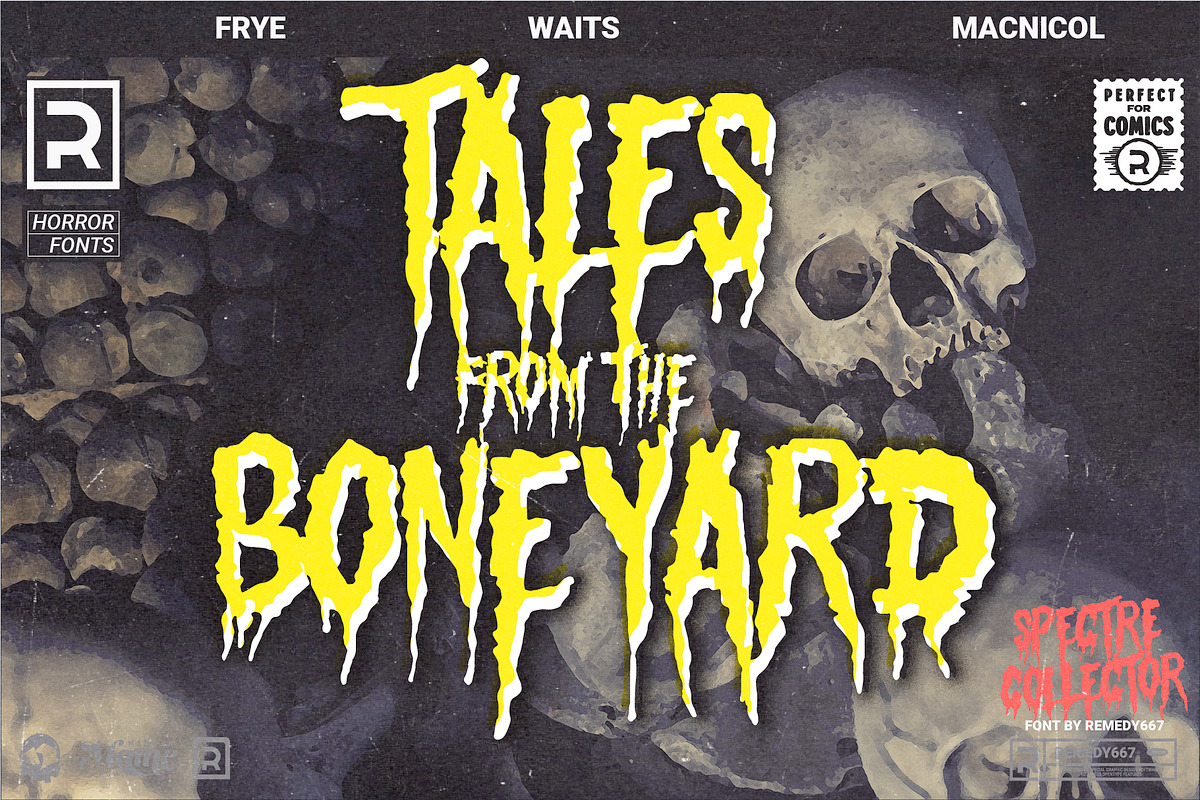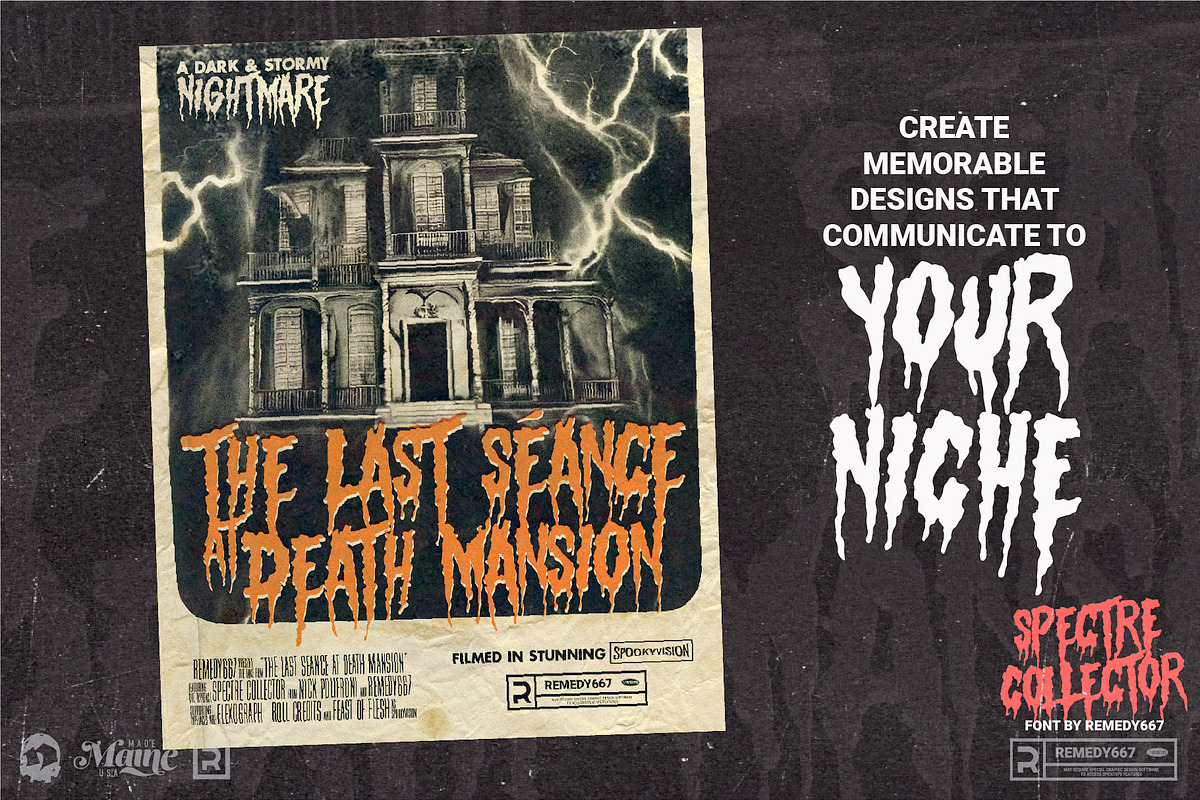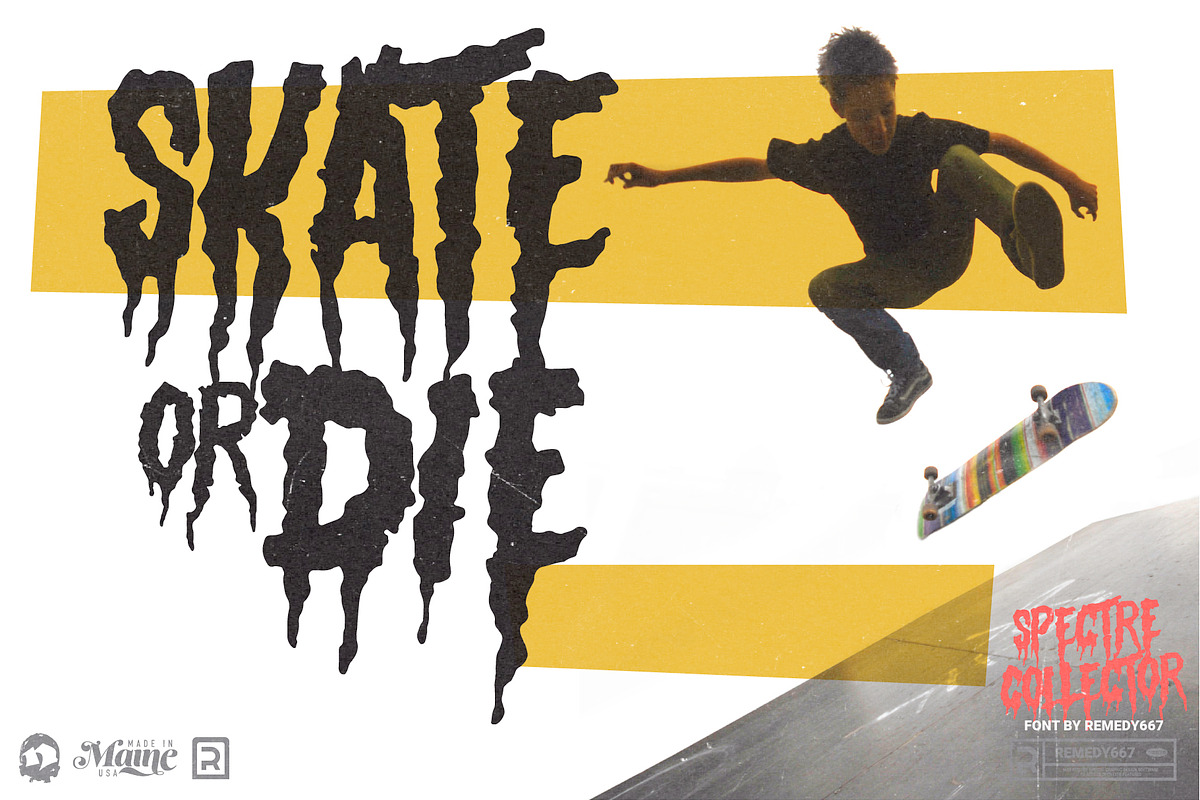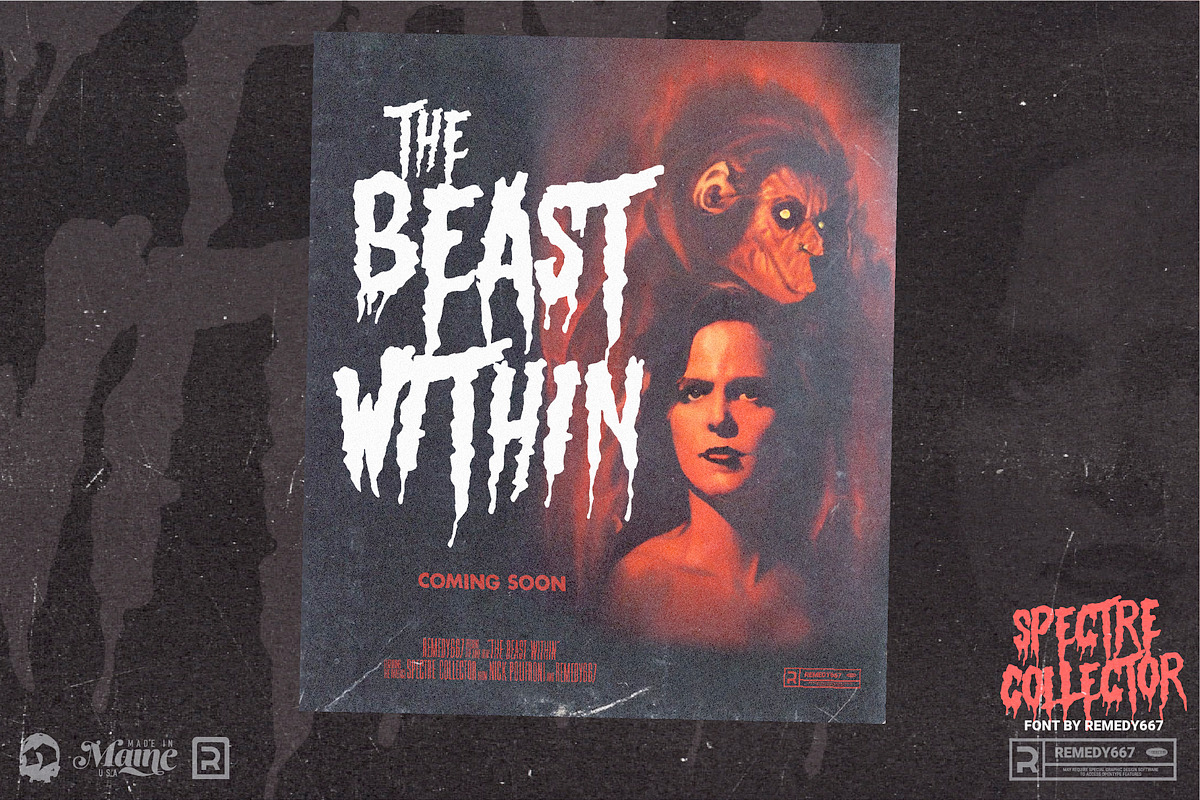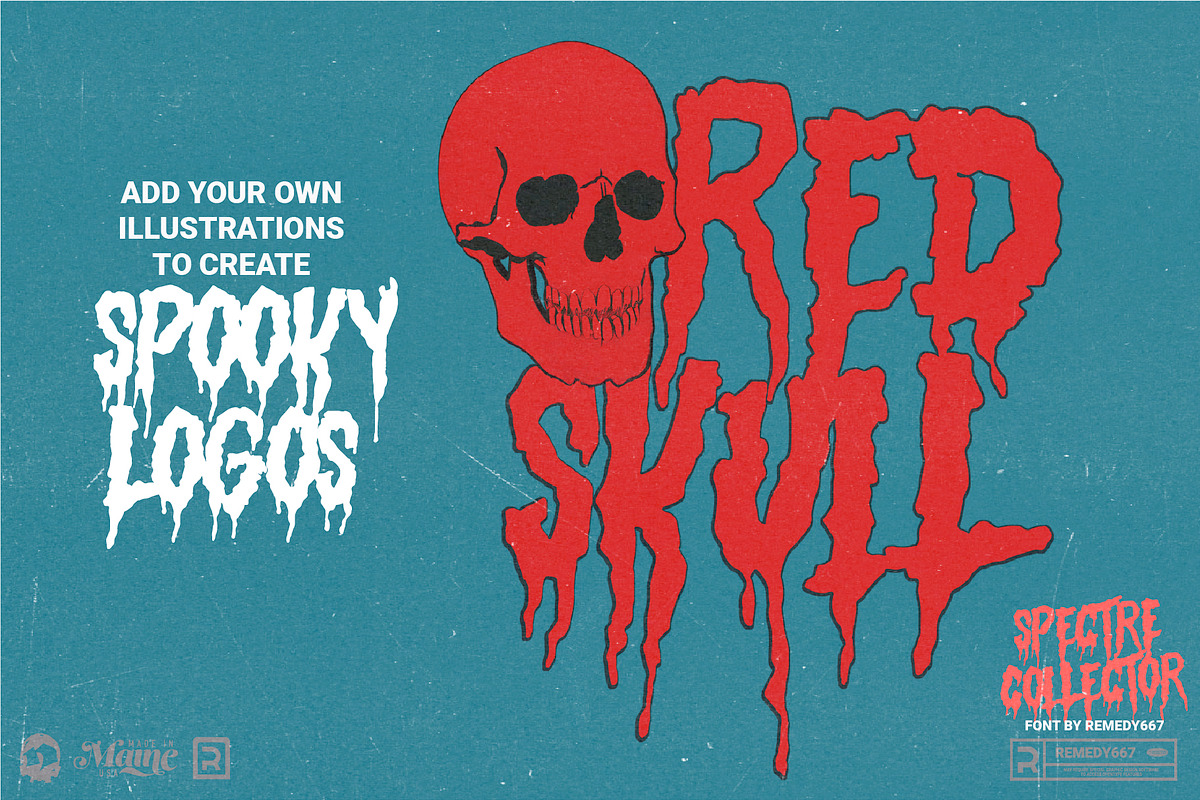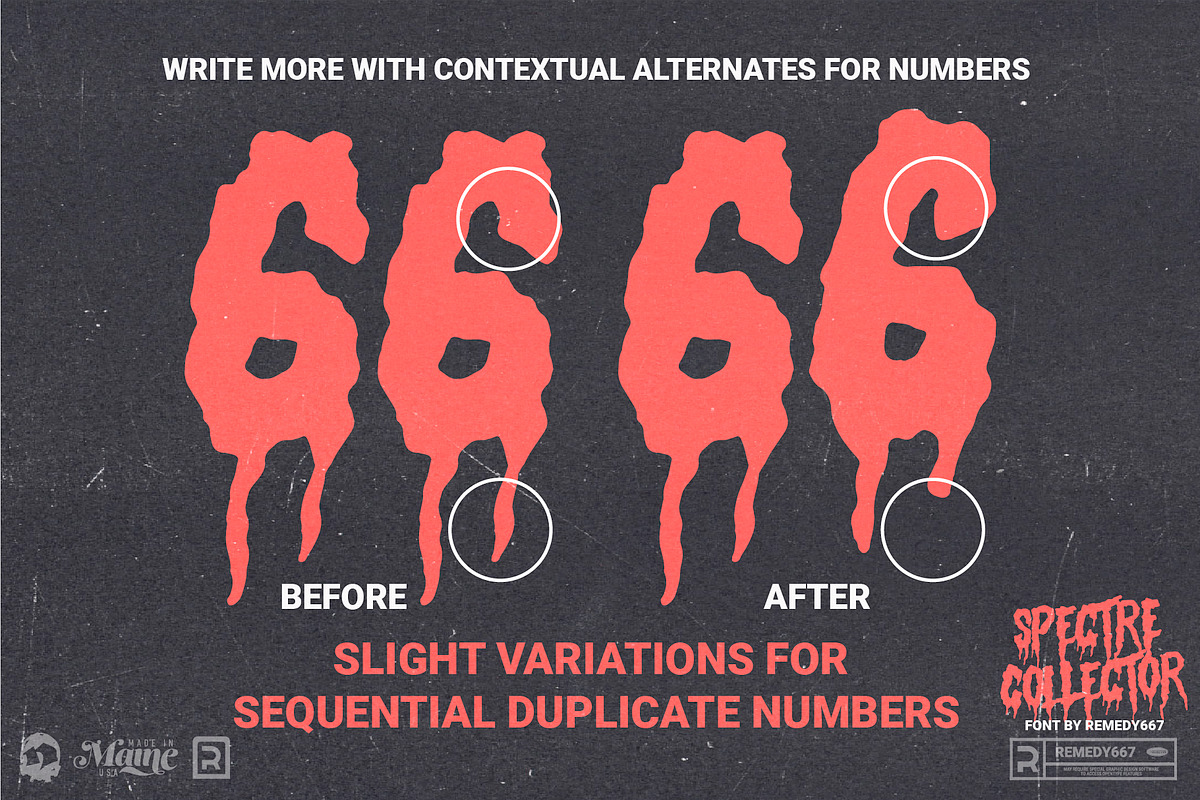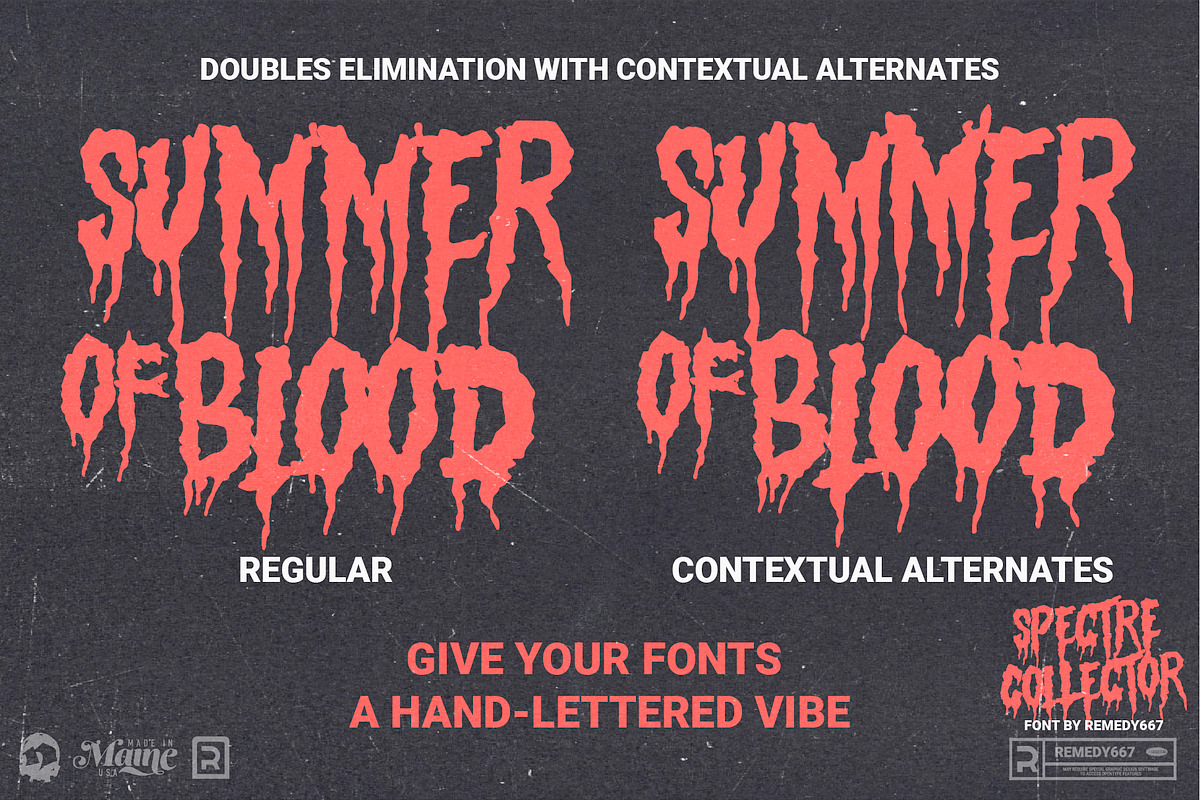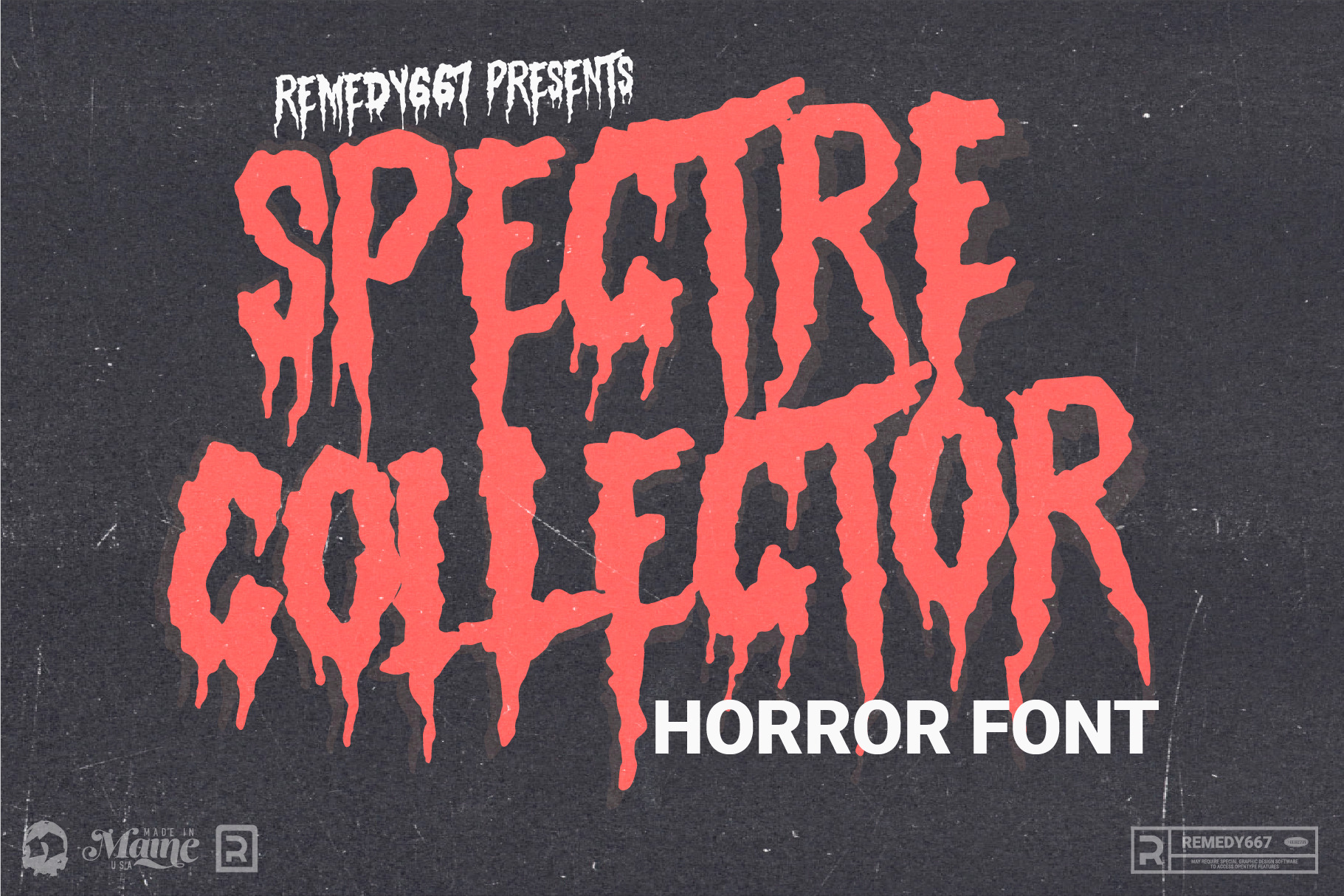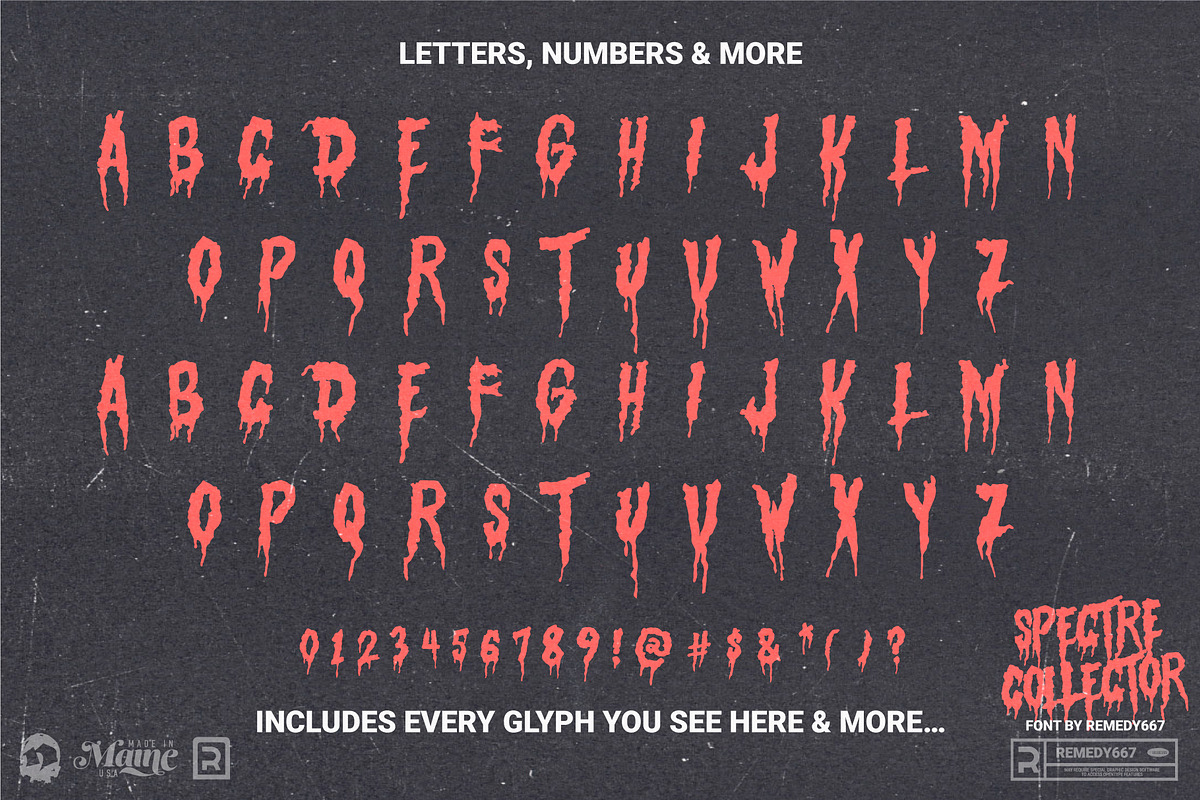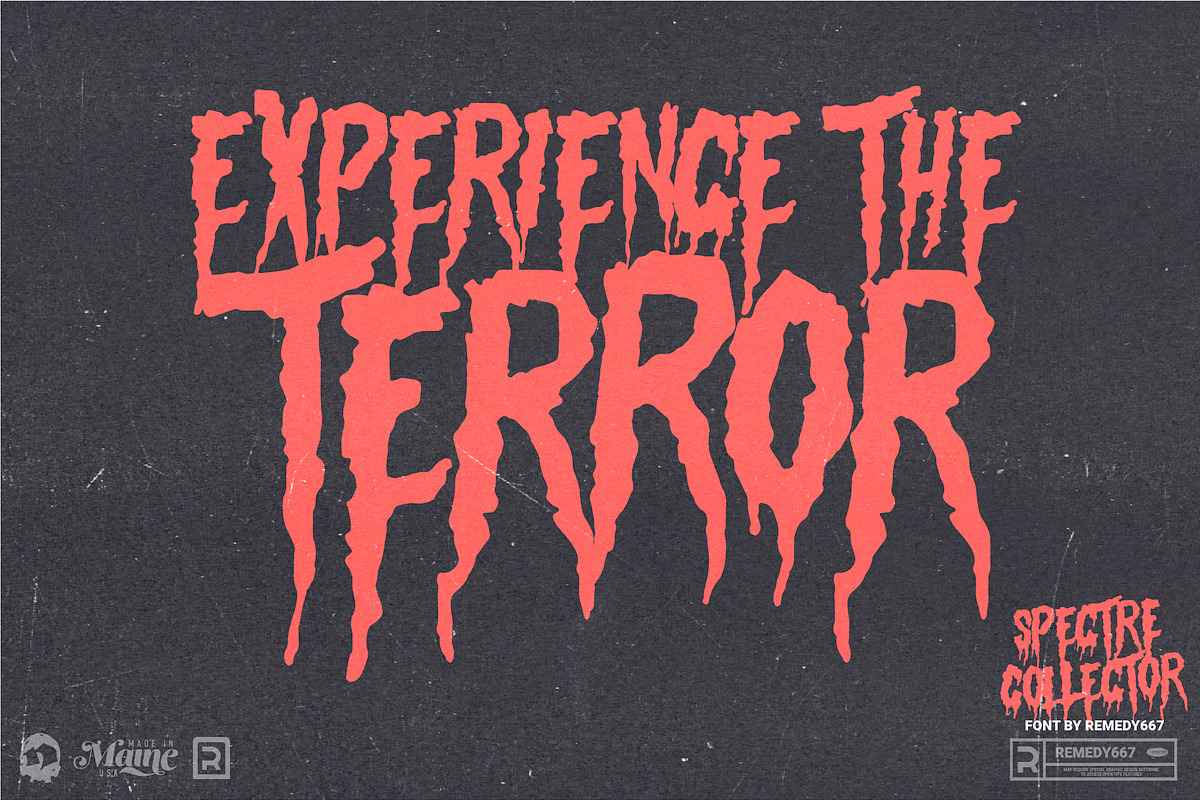
Spectre Collector - Horror Font
Feeling the need to mix some blood with your fonts? Spectre Collector is the perfect typeface for all of you horror movie lovers. Use it in any graphic design, from logos to title cards. Add that perfect touch of death to your projects.
Spectre Collector is the perfect display typeface for video game titles, movie posters, apparel designs, album artwork, or anything horror-themed. Spectre Collector is a powerful tool for designing horror-themed projects. Try it today!
- Doubles Elimination for letters and numbers gives you a more natural look
- Create memorable designs that communicate your niche
- The ultimate font for horror titles and taglines